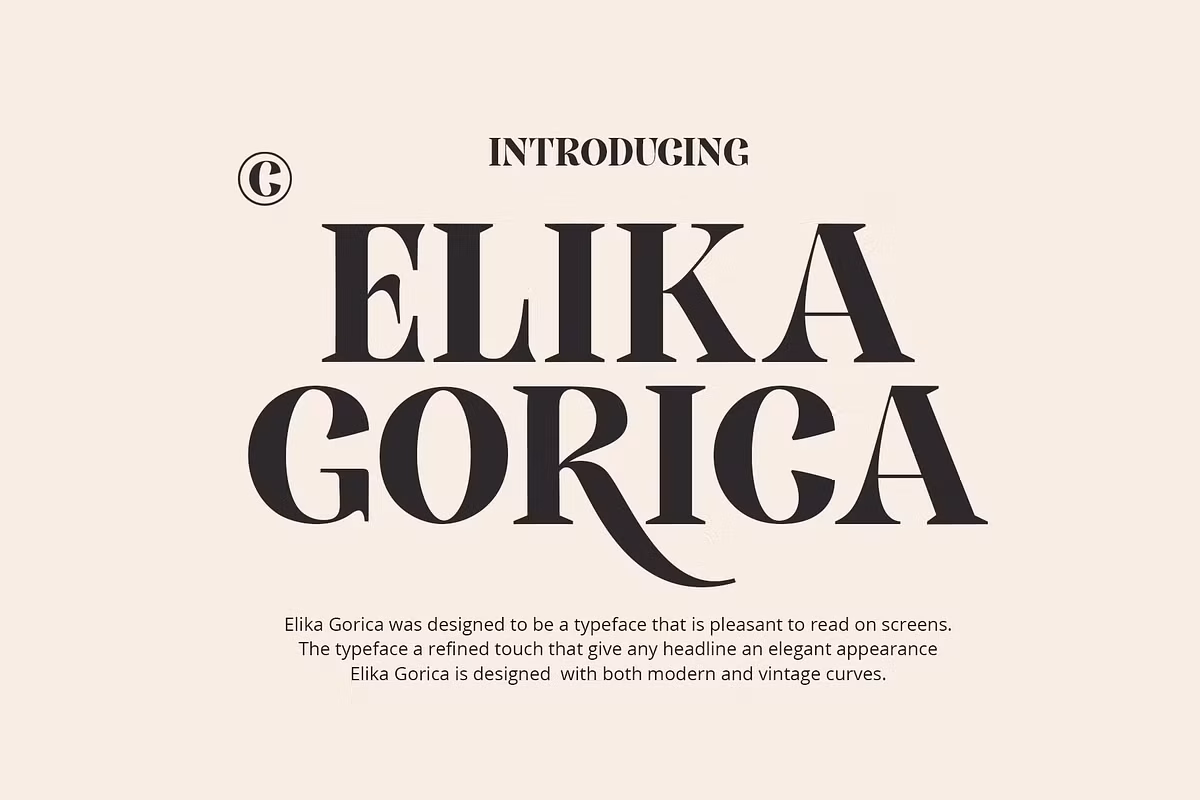
Elika Gorica Font Free Download is a refined and elegant typeface with a modern twist on classic serif design. Featuring sharp, clean lines and a sophisticated look, Elika Gorica is perfect for high-end branding, editorial layouts, luxury packaging, and any project that requires a combination of elegance and readability.
Elika Gorica Font Free Download adds a sleek and polished feel to your typography, making it ideal for upscale designs. Whether you're creating a premium logo, designing a stylish magazine cover, or working on modern branding, Elika Gorica brings timeless sophistication and modern appeal to your projects. Download it today and enhance your designs with the elegance of Elika Gorica!